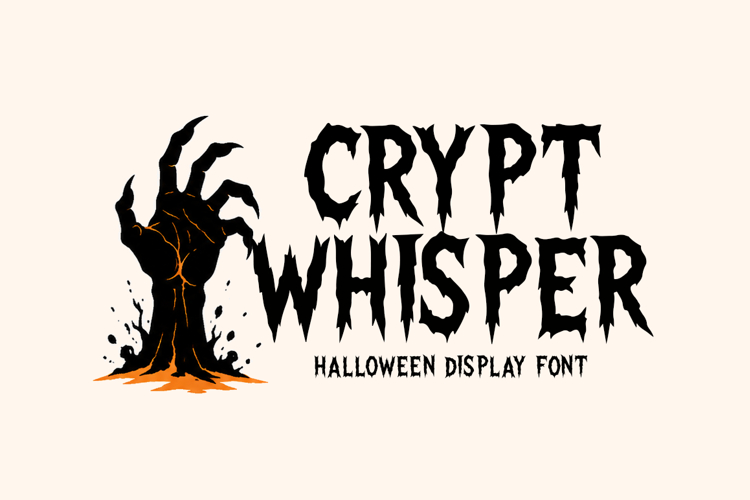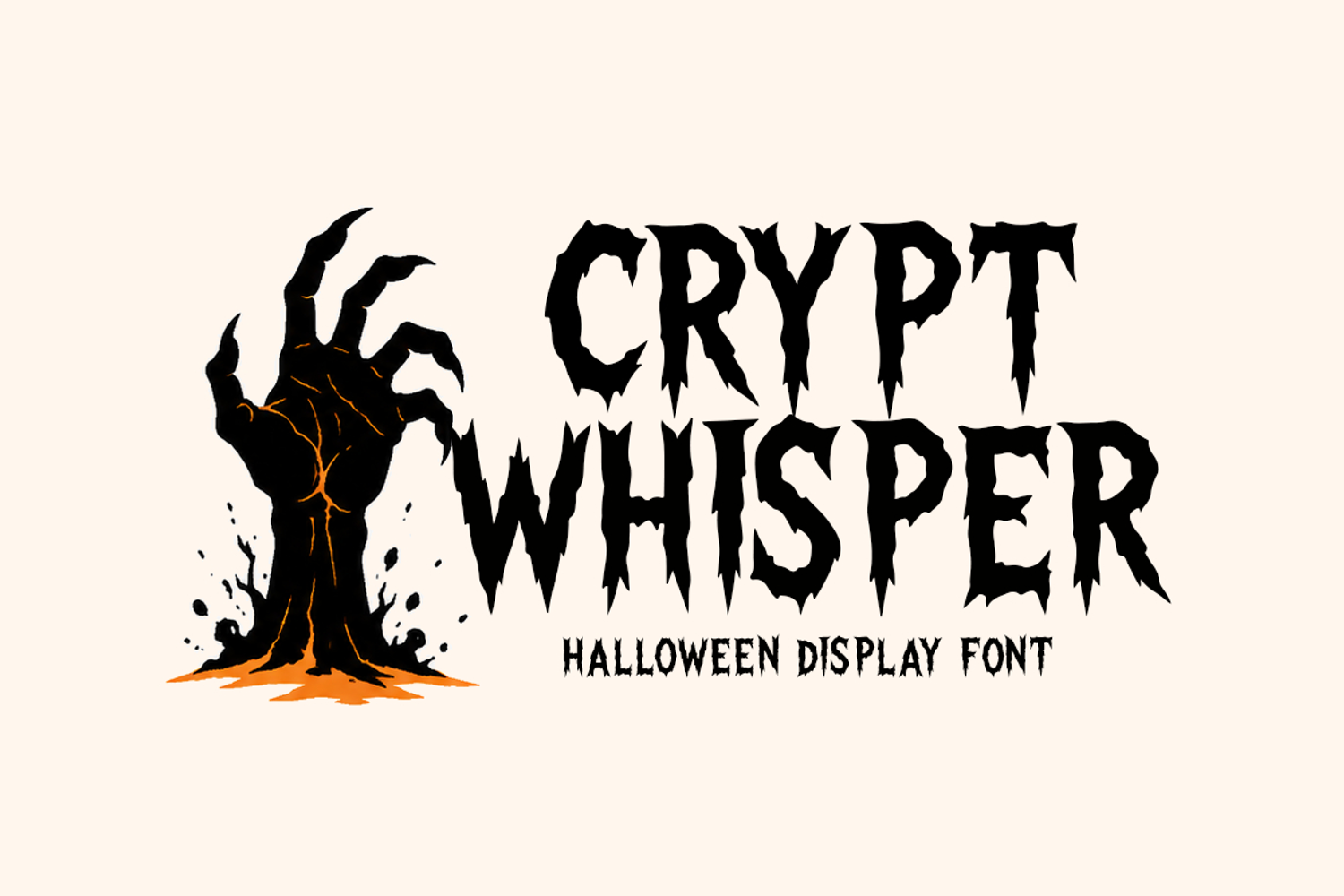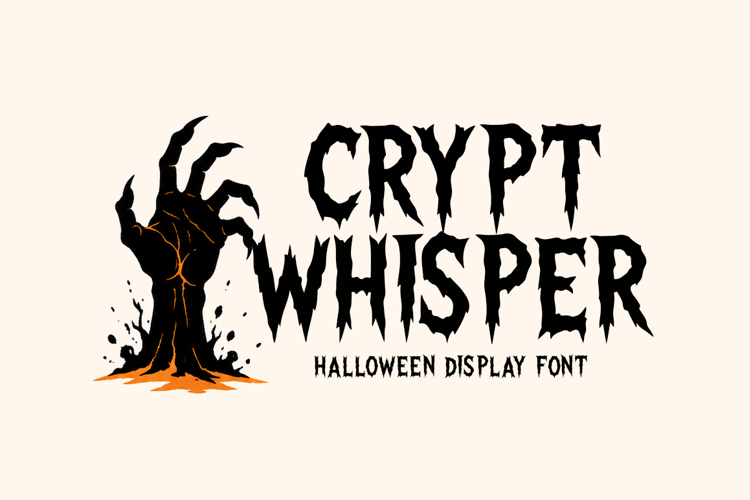
Introducing Crypt Whisper!
Crypt Whisper is a haunting Halloween display font inspired by eerie legends, forgotten crypts, and mysterious whispers in the dark. Its bold, spooky letterforms create an unforgettable horror atmosphere, making it perfect for Halloween posters, invitations, branding, packaging, party decorations, and chilling creative projects.